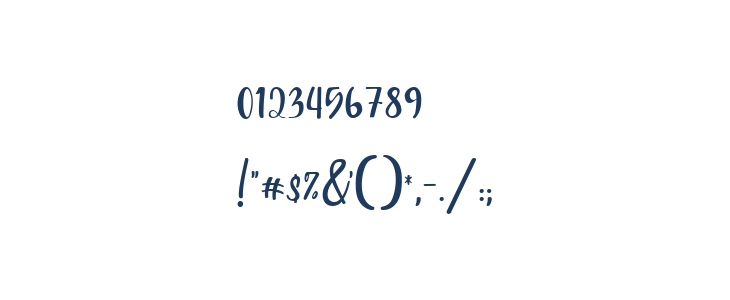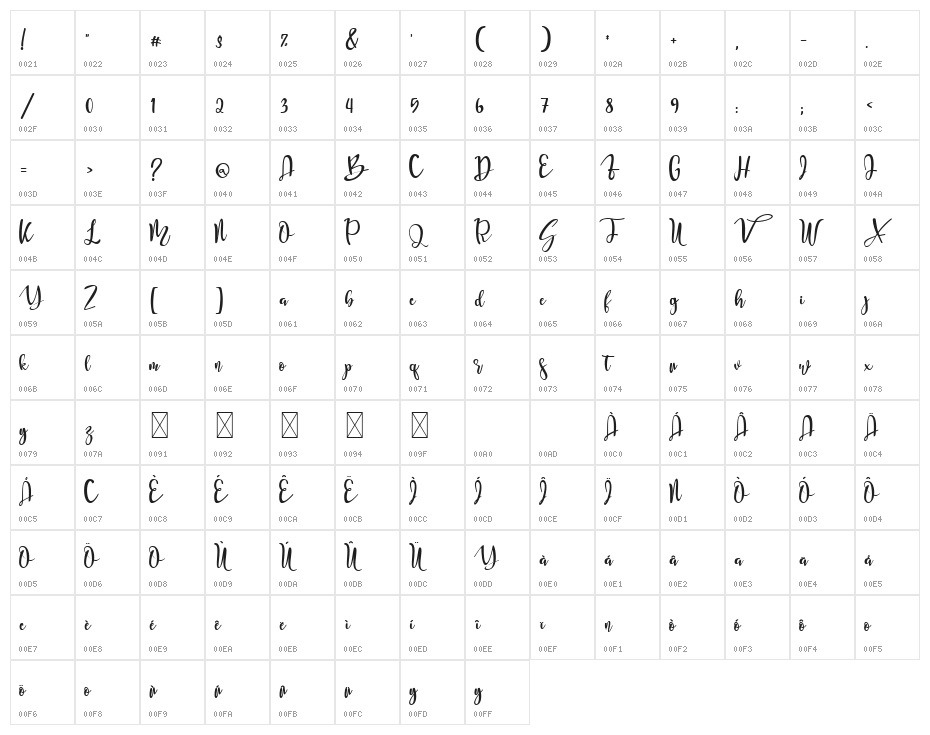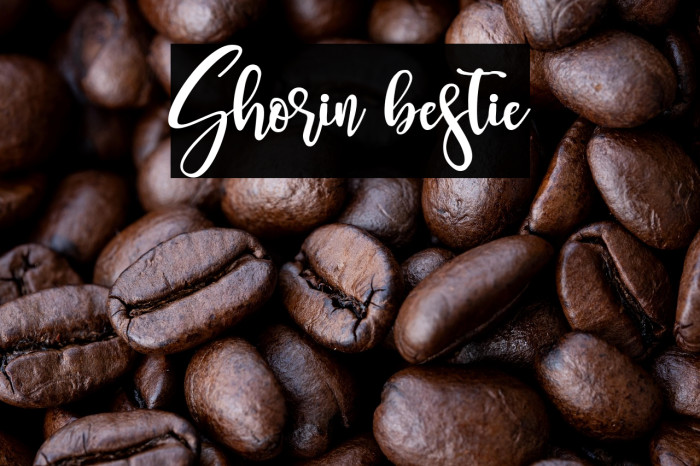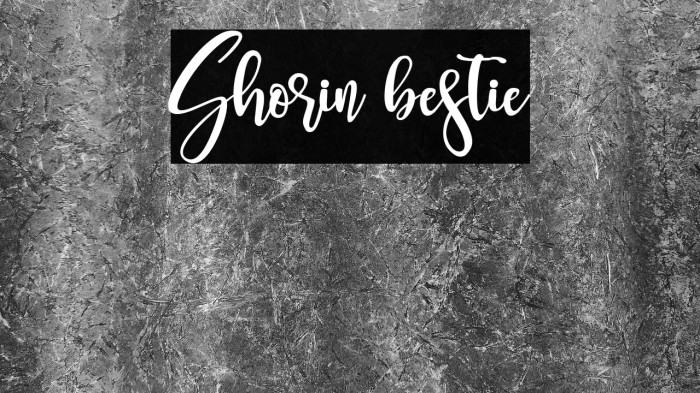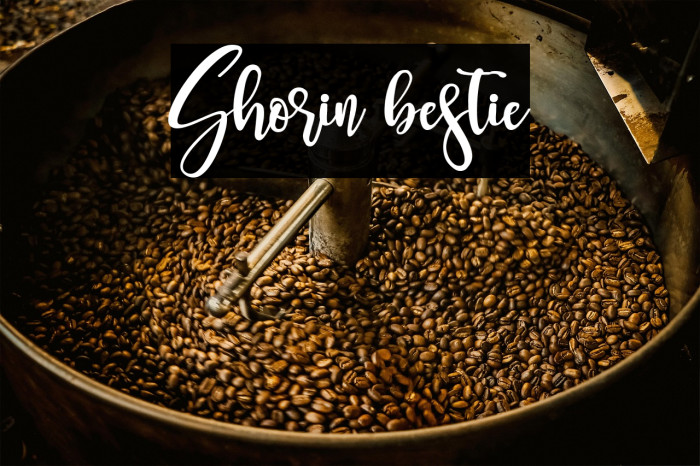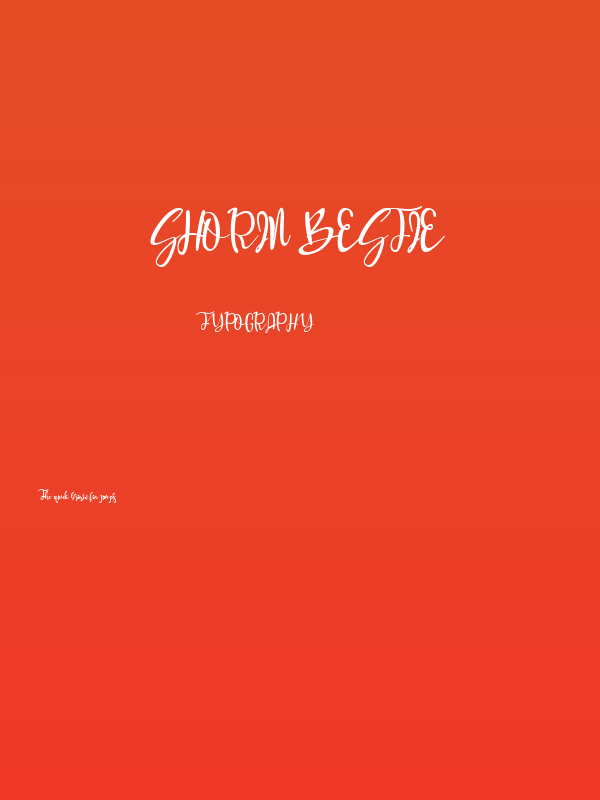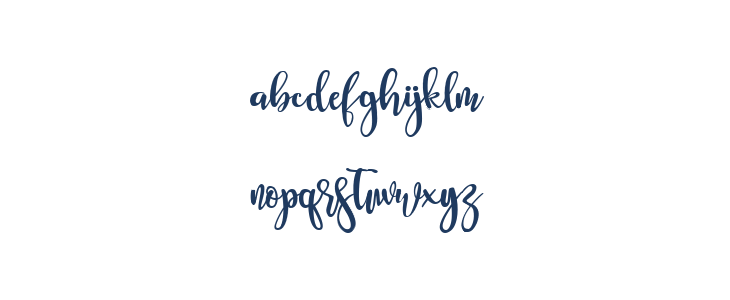
Shorin bestie Font
Shorin bestie Description
This font features a playful and elegant script style with a handwritten appearance. The letters are characterized by their flowing, cursive forms, which give a sense of movement and fluidity. The uppercase letters are bold and expressive, with unique flourishes that add a decorative touch. The lowercase letters maintain a consistent style, complementing the uppercase with their smooth curves and loops. The numerals are clear and legible, matching the overall aesthetic of the font. Special characters are included, maintaining the same whimsical style. This font is perfect for projects that require a personal and artistic touch, such as invitations, greeting cards, and branding materials.
| Proposed Projects | Ideal for invitations, greeting cards, branding, and artistic projects. |